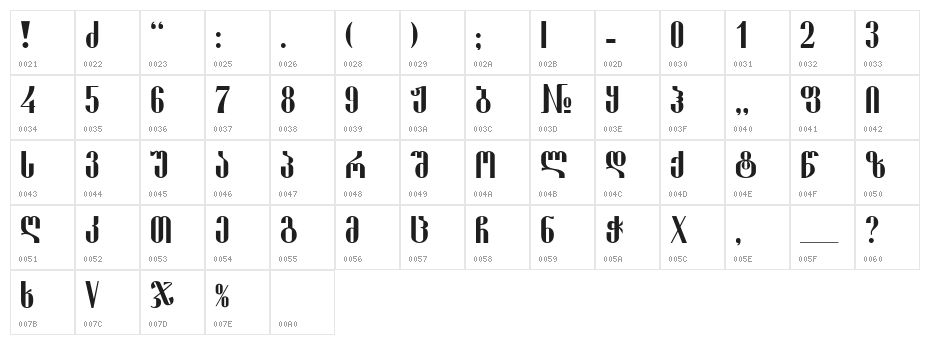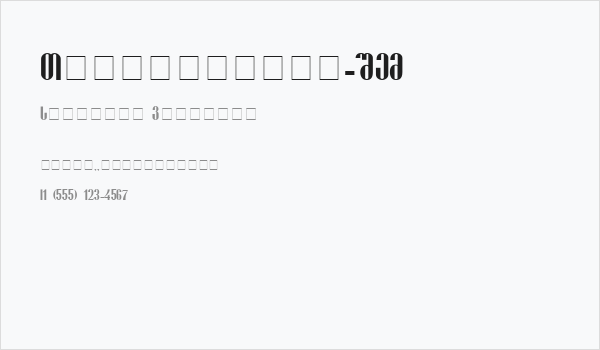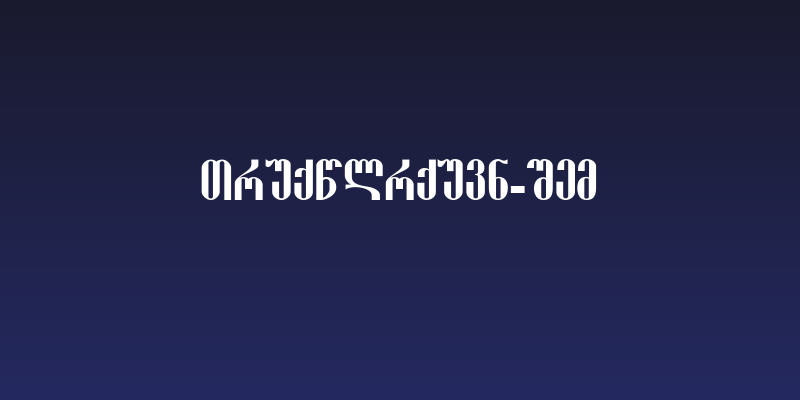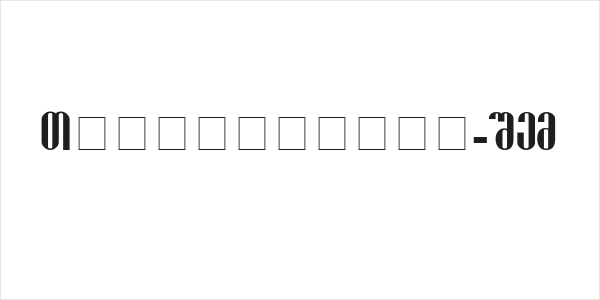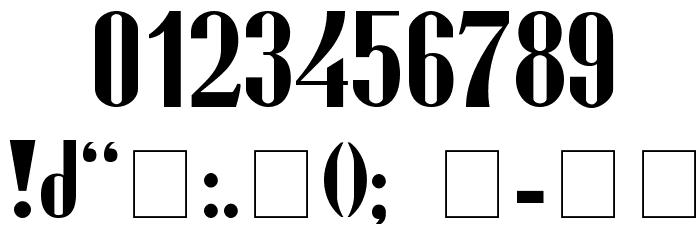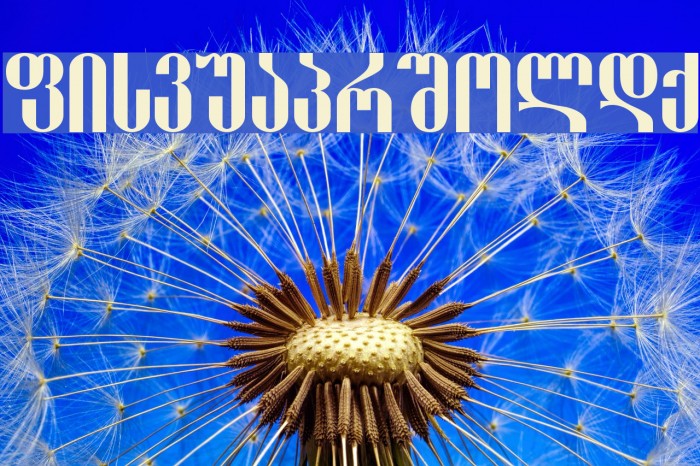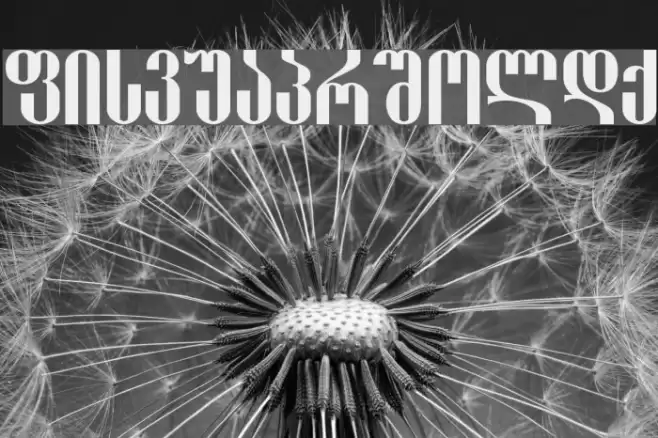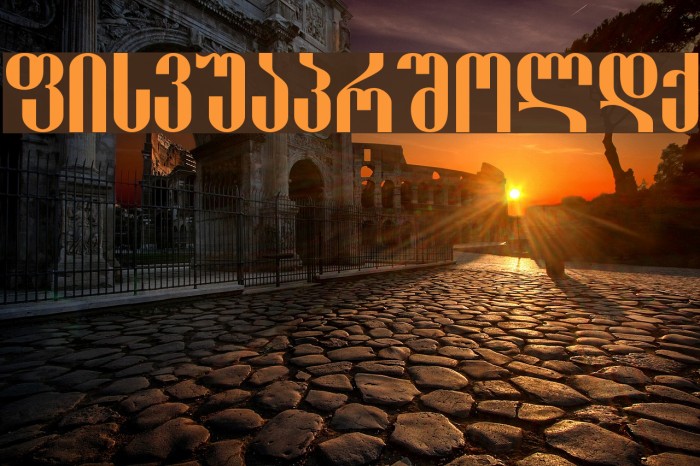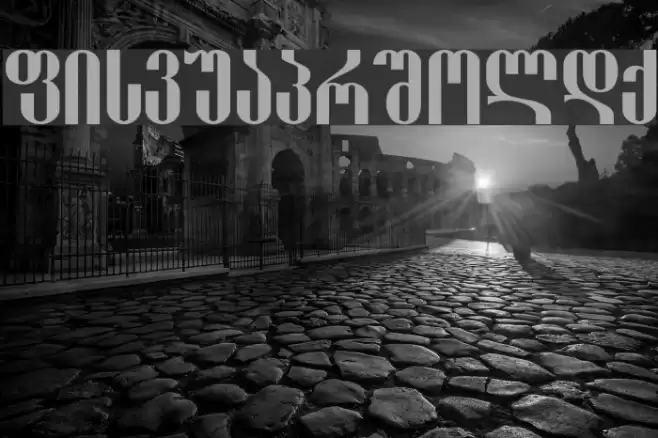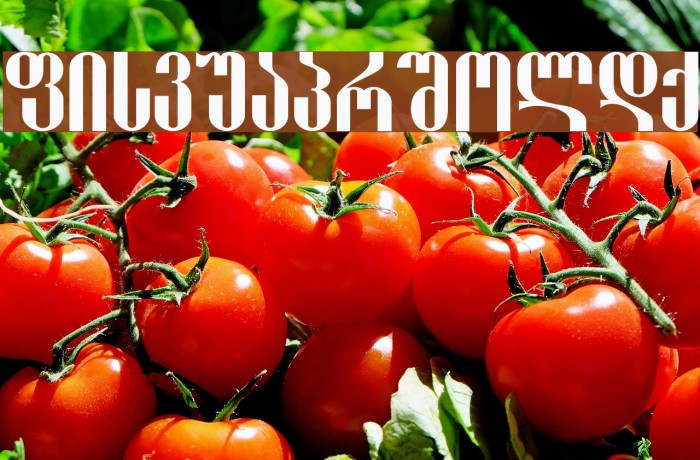
Shemokhmedy-ITV Font
Shemokhmedy-ITV Description
This font features a bold and striking design with high contrast between thick and thin strokes, giving it a dramatic and impactful appearance. The characters are tall and narrow, with a condensed width that enhances its boldness. The style is distinctly modern, with a touch of elegance that makes it suitable for attention-grabbing headlines and titles. The numbers are equally bold, maintaining the high contrast and condensed form. Special characters are designed with the same boldness, ensuring consistency across the font. The overall aesthetic is both powerful and stylish, making it ideal for projects that require a strong visual impact.
| Proposed Projects | Ideal for headlines, posters, branding, and any design requiring a strong visual impact. |